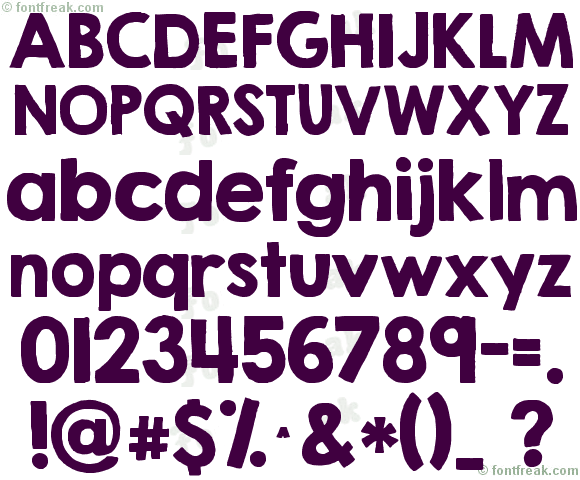
KG Second Chances Solid by Kimberly Geswein is a captivating display font that embodies a playful yet bold character. This font falls under the category of decorative typefaces, characterized by its solid, chunky letterforms that exude a sense of friendliness and approachability. The stroke weight is consistent throughout, offering a sturdy appearance without excessive contrast, which makes it easy to read even at larger sizes. The spacing between the letters is well-balanced, ensuring clarity while maintaining a cohesive look.
This font is particularly versatile, making it suitable for a variety of design projects. Its playful nature makes it an excellent choice for children's book covers, where it can attract young readers with its engaging style. Additionally, it works wonderfully for event flyers, especially for casual gatherings or community events, where a light-hearted touch is desired. Restaurant menus can also benefit from the inviting feel of KG Second Chances Solid, appealing to diners looking for a warm and welcoming atmosphere. Furthermore, it’s suitable for branding projects aimed at small businesses, providing a unique identity that resonates with customers.
The target audience for KG Second Chances Solid font includes graphic designers, small business owners, and content creators who are looking to add a touch of personality to their projects. This font's charm makes it an appealing option for those who wish to stand out in a crowded visual landscape.
In conclusion, KG Second Chances Solid font free download offers a unique blend of boldness and warmth, making it a standout choice for anyone seeking to inject personality into their designs. Its versatility and engaging aesthetics ensure it will leave a lasting impression, making it a valuable addition to any typographic toolkit.